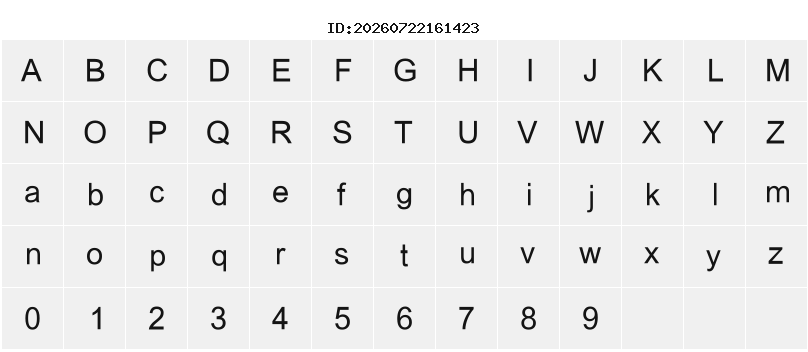
HGHangle Preview
• Font Name: HGHangle
• Font ID: RICOH TrueType Font :HGHangle:2007
• Full Font Name: HGHangle
• Version: Version 1.11 for sony. (ascii-pro,symbol,hangle/outline,gray 2+)
• PostScript Name: HGHangle
• Character Count: 3431
About HGHangle.ttf
HGHangle.ttf is a modern, elegant sans-serif font designed for ultimate readability and visual harmony. Perfect for branding, headlines, web design, and print materials.